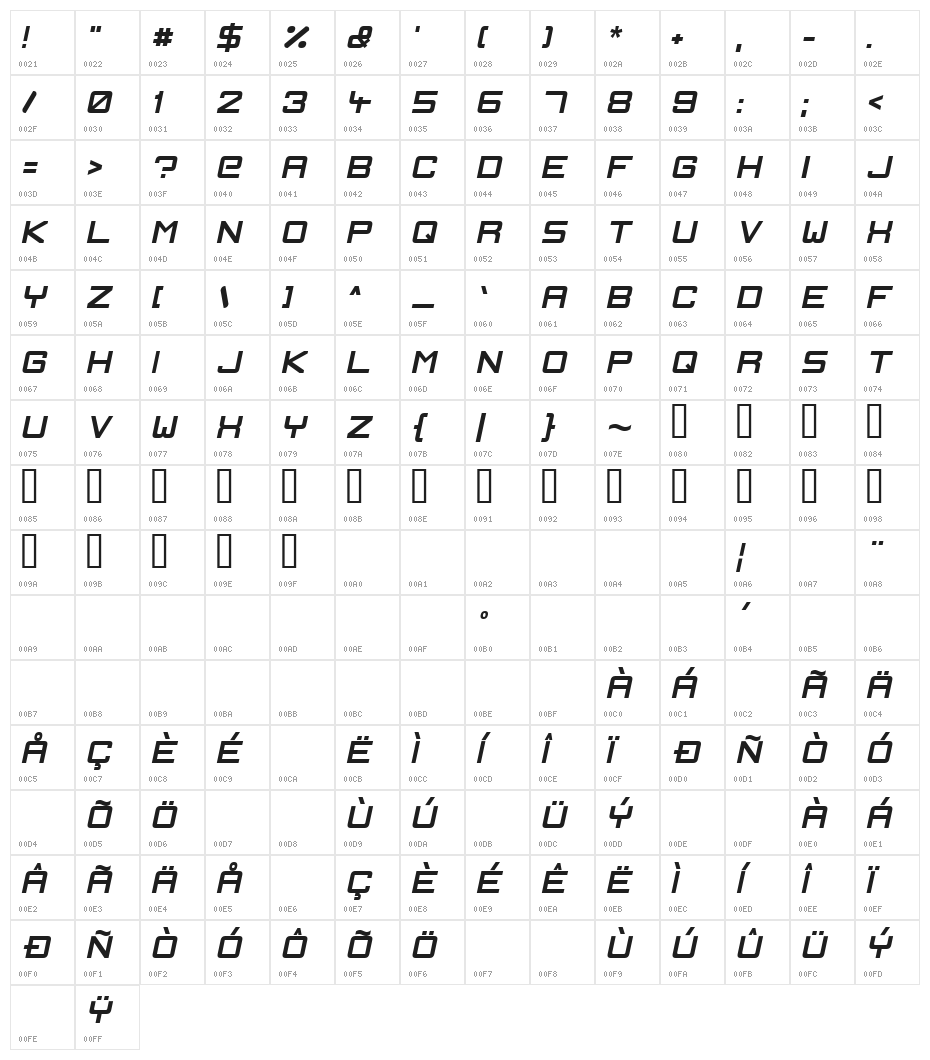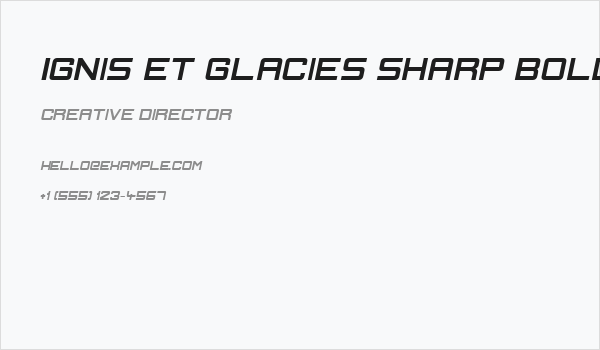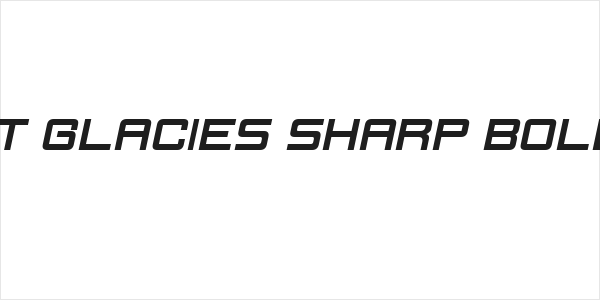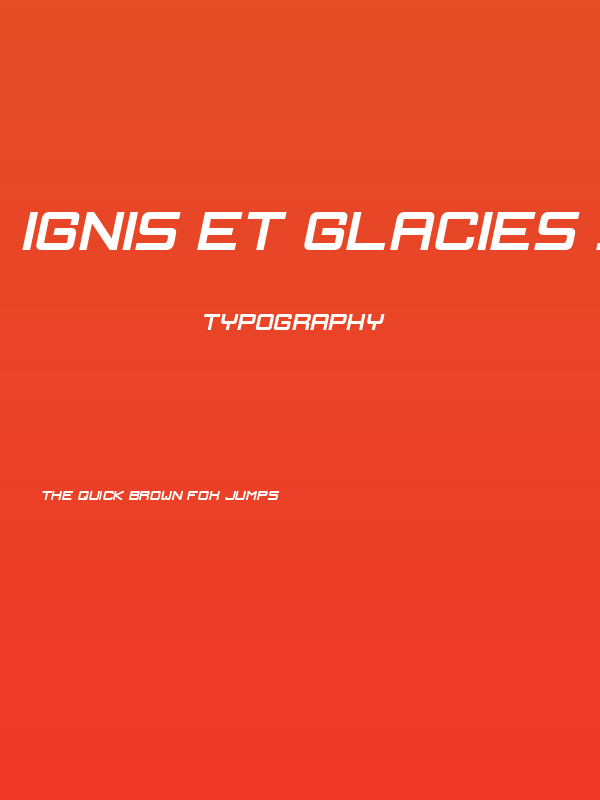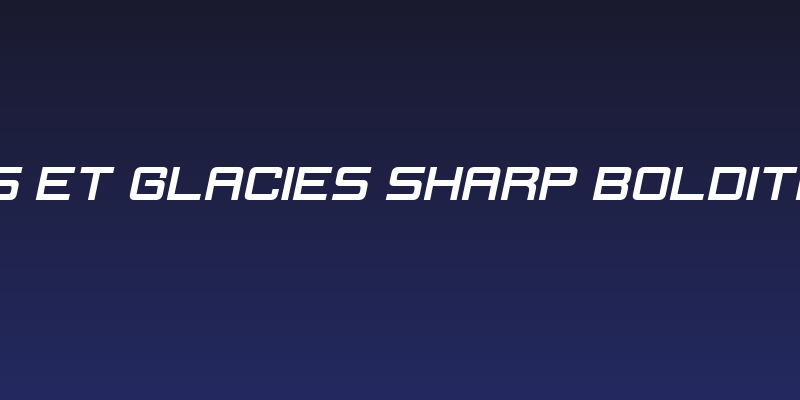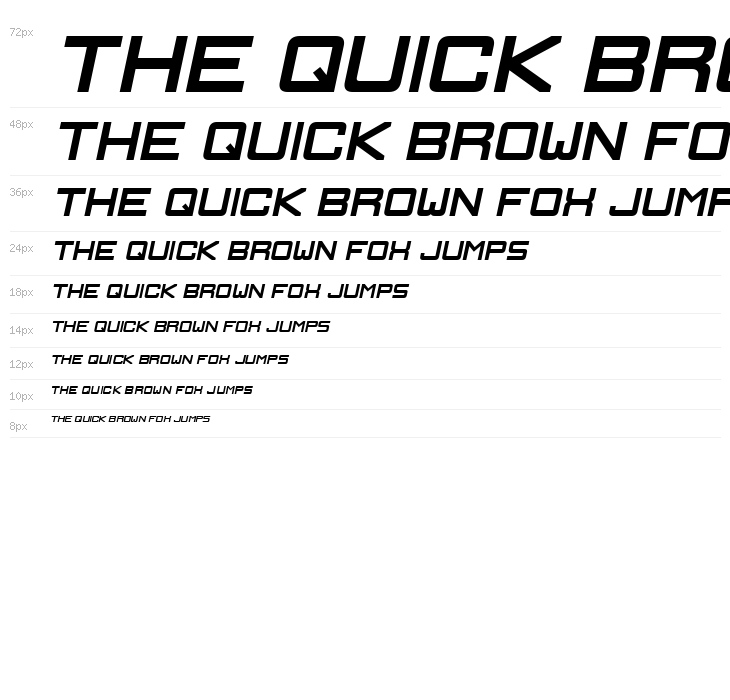
Ignis et Glacies Sharp BoldItalic Font
Ignis et Glacies Sharp BoldItalic Description
This font features a bold and italicized style with sharp, angular edges that convey a sense of modernity and dynamism. The uppercase and lowercase letters maintain a consistent slant, enhancing the italic effect. The numerals and special characters follow the same design principles, ensuring uniformity across all glyphs. The font's geometric structure and clean lines make it suitable for contemporary design projects, where a strong visual impact is desired. Its sharpness and boldness are balanced by the italic slant, adding a touch of elegance to its robust appearance.
| Proposed Projects | Ideal for branding, advertising, and editorial design projects that require a modern and impactful typeface. |